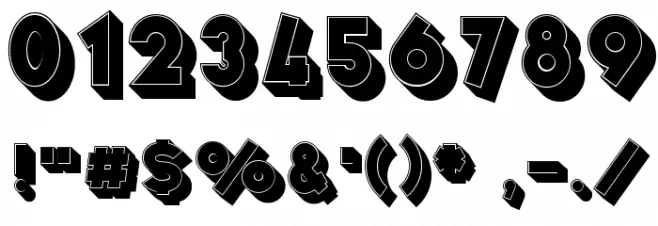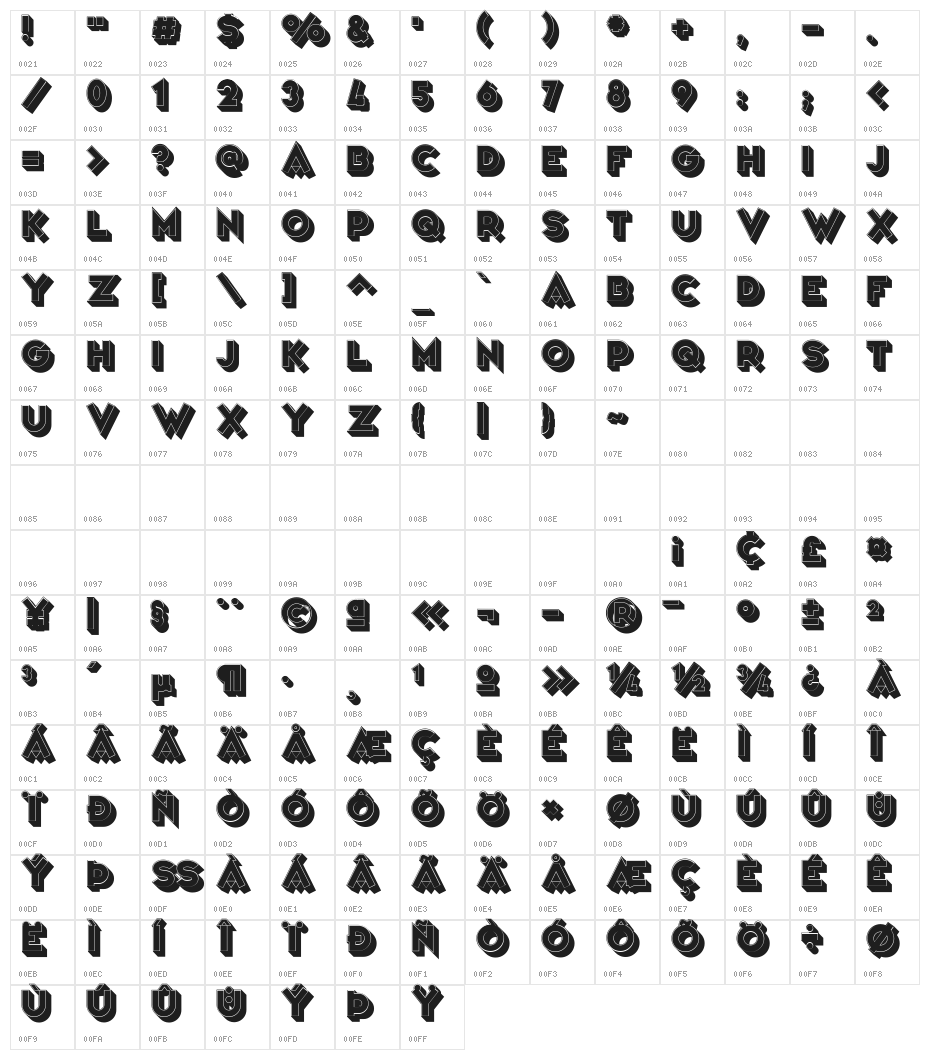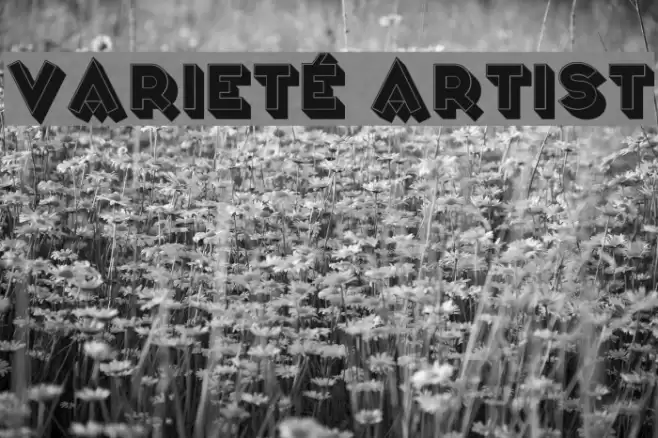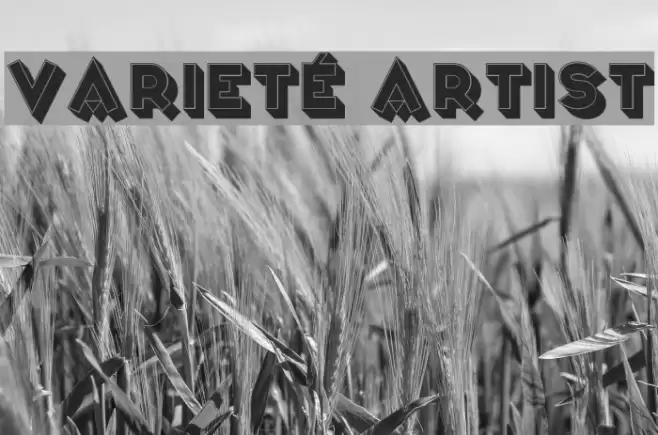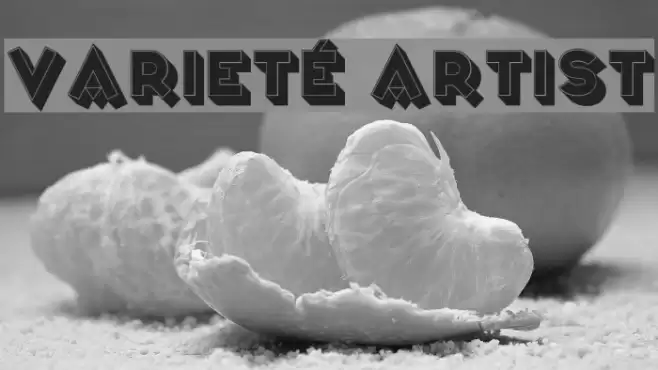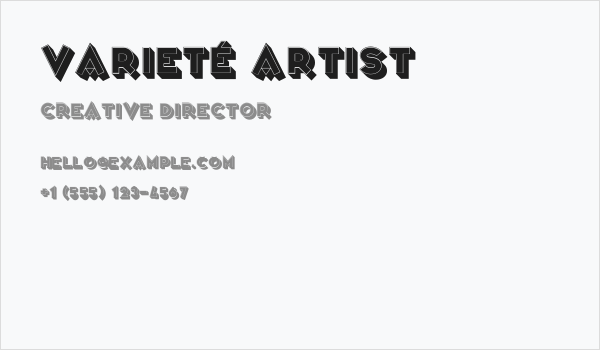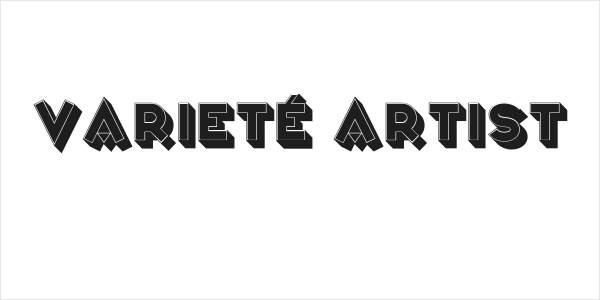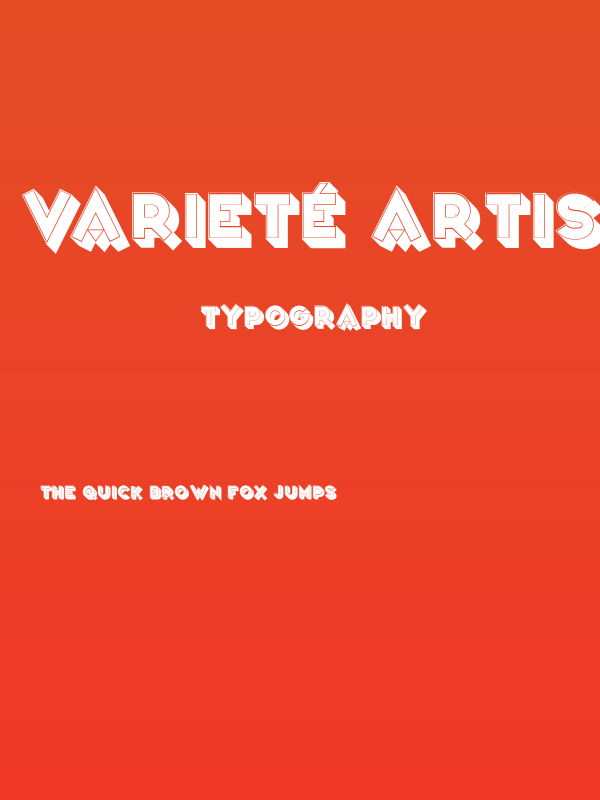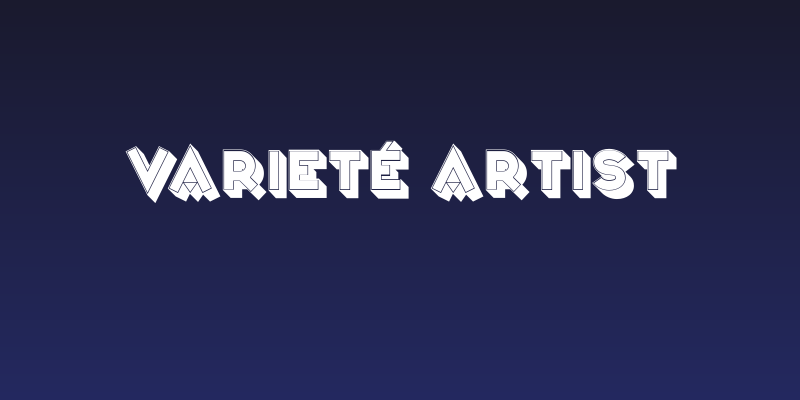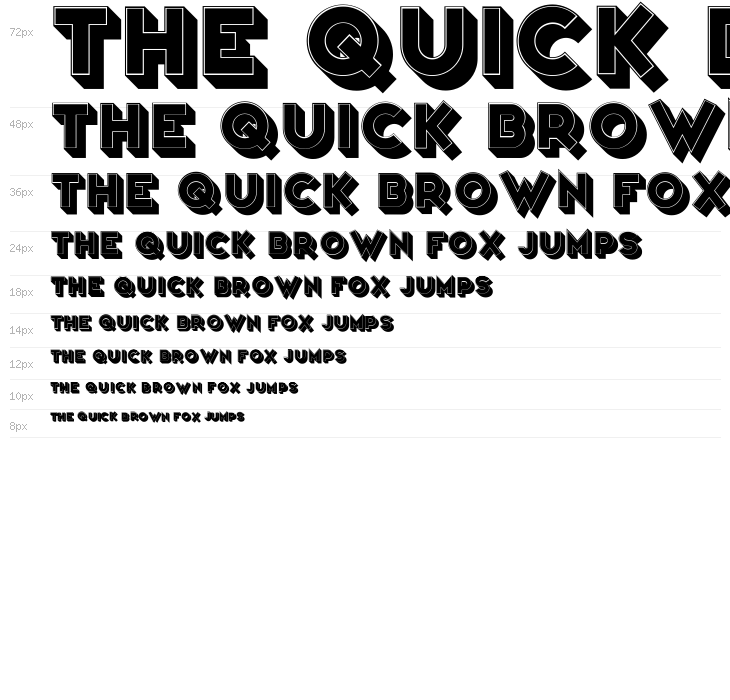
Varieté Artist Font
Varieté Artist Description
This font features a bold, three-dimensional style with a strong visual impact. The characters are designed with a shadow effect that gives them a sense of depth and volume. Each letter is constructed with clean, geometric lines and sharp angles, contributing to a modern and dynamic appearance. The font maintains a consistent thickness throughout, enhancing its boldness and readability. The spacing between characters is tight, which helps in creating a cohesive and compact look. This font is particularly striking in uppercase, where its architectural qualities are most pronounced. The numbers and special characters follow the same design principles, ensuring uniformity across all glyphs.
| Proposed Projects | Ideal for poster designs, branding, headlines, and any project requiring a strong visual impact. |